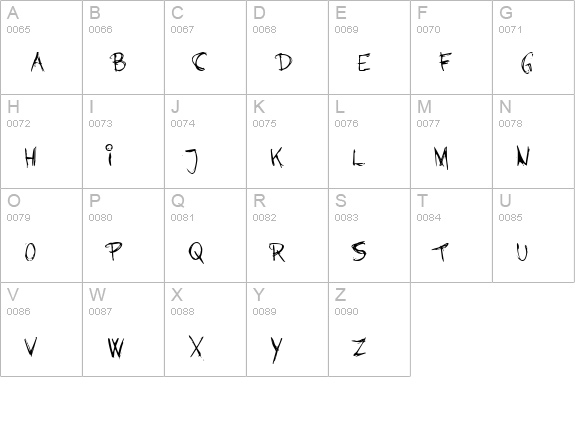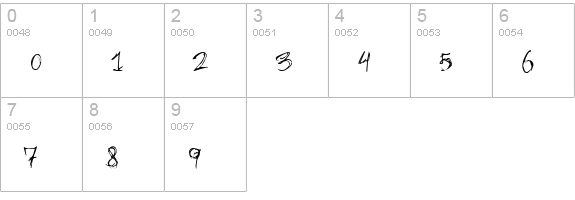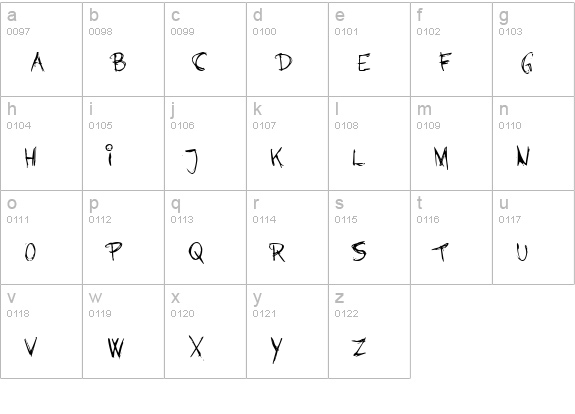
Barbies Jalous Sisters Handwriting Font Details
Barbies Jalous Sisters Handwriting font is a whimsical and charming script font that exudes elegance and femininity. With its delicate strokes and graceful curves, this font is perfect for adding a touch of sophistication to your projects. Whether you're designing invitations, branding materials, or social media graphics, Barbies Jalous Sisters Handwriting font is sure to make a statement. The best part? This stunning font is available for free download at FontsMarket.com. Simply head over to the website and grab your copy today to elevate your designs with this beautiful typeface. Don't miss out on the opportunity to add Barbies Jalous Sisters Handwriting font to your font collection and bring a touch of glamour to your projects.